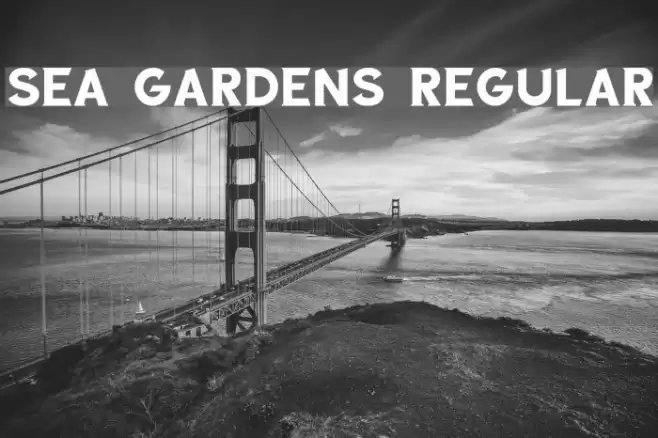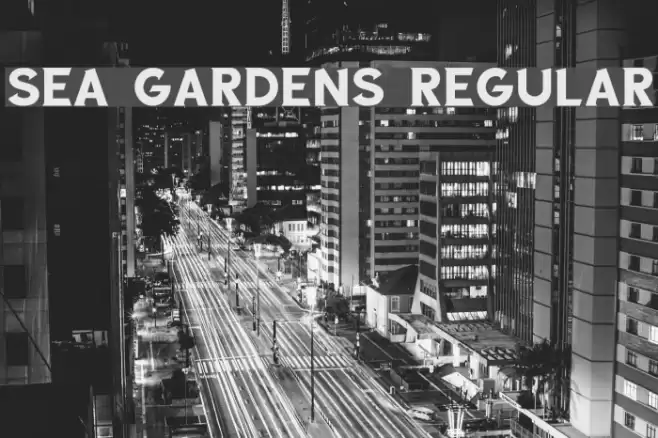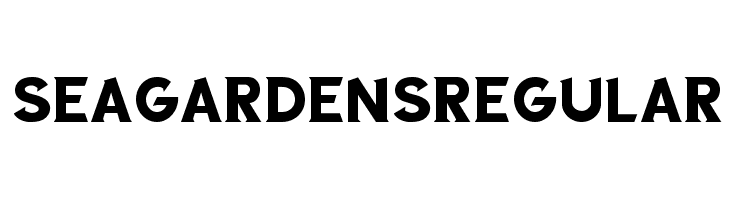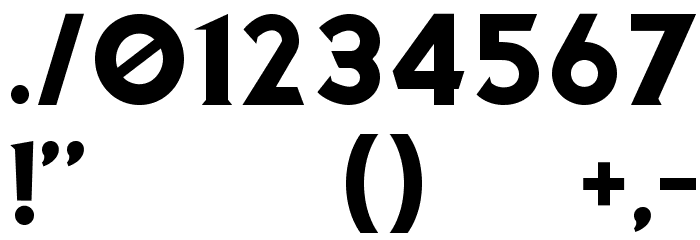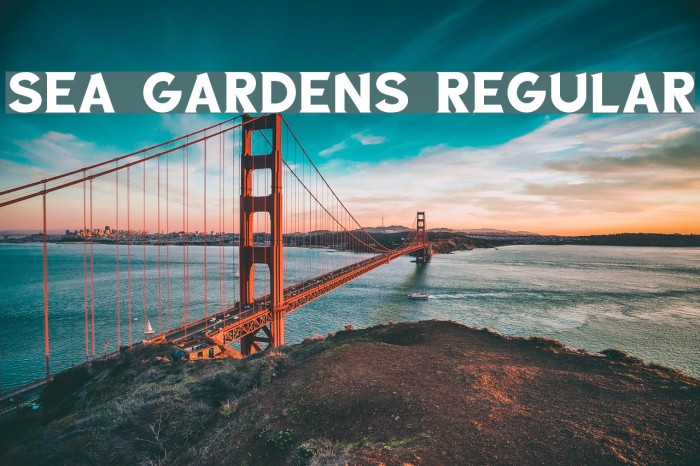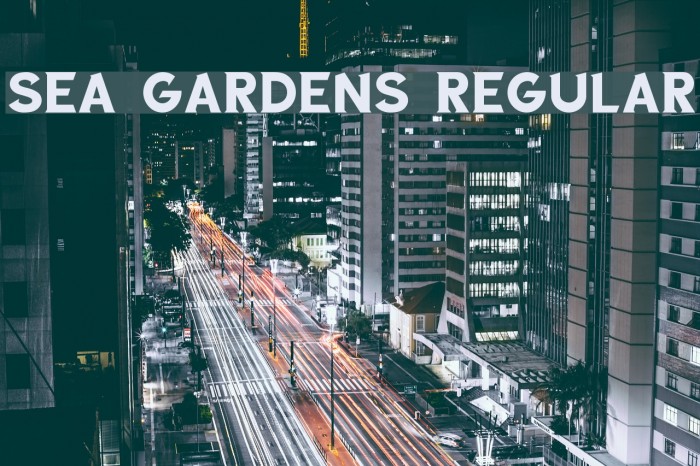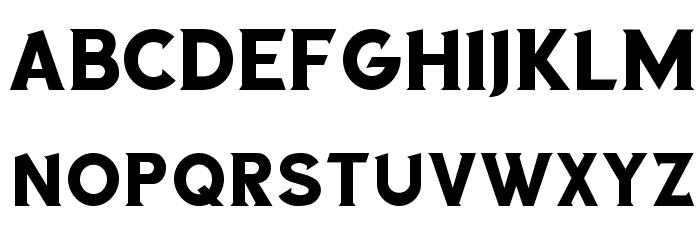
Sea Gardens Regular Font
Sea Gardens Regular Description
This font features a bold and striking design with strong geometric shapes and clean lines. The uppercase letters are particularly prominent, with a uniform height and width that create a sense of balance and stability. The numerals are equally bold, ensuring readability and impact. The special characters maintain the same boldness, integrating seamlessly with the rest of the typeface. Overall, the font exudes a modern and professional aesthetic, making it suitable for a variety of design applications.
A bold, geometric font with strong lines and a modern aesthetic from Uncategorized fonts.